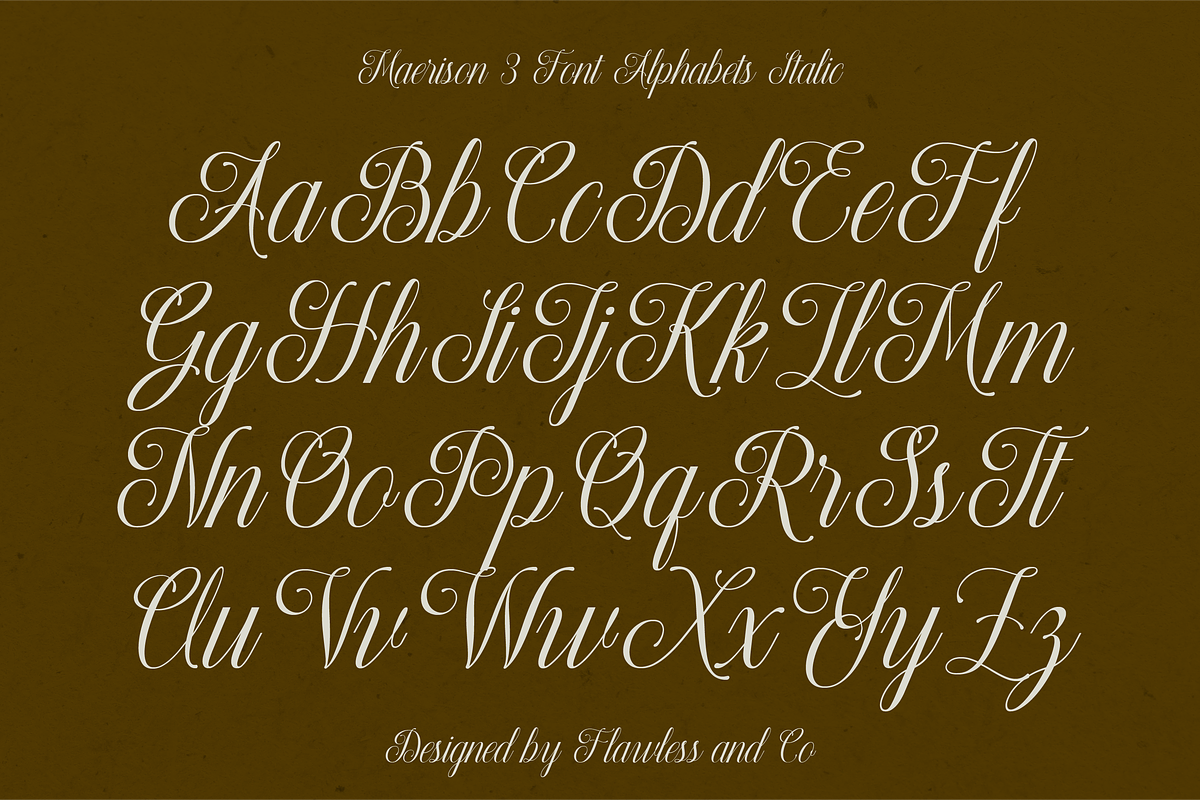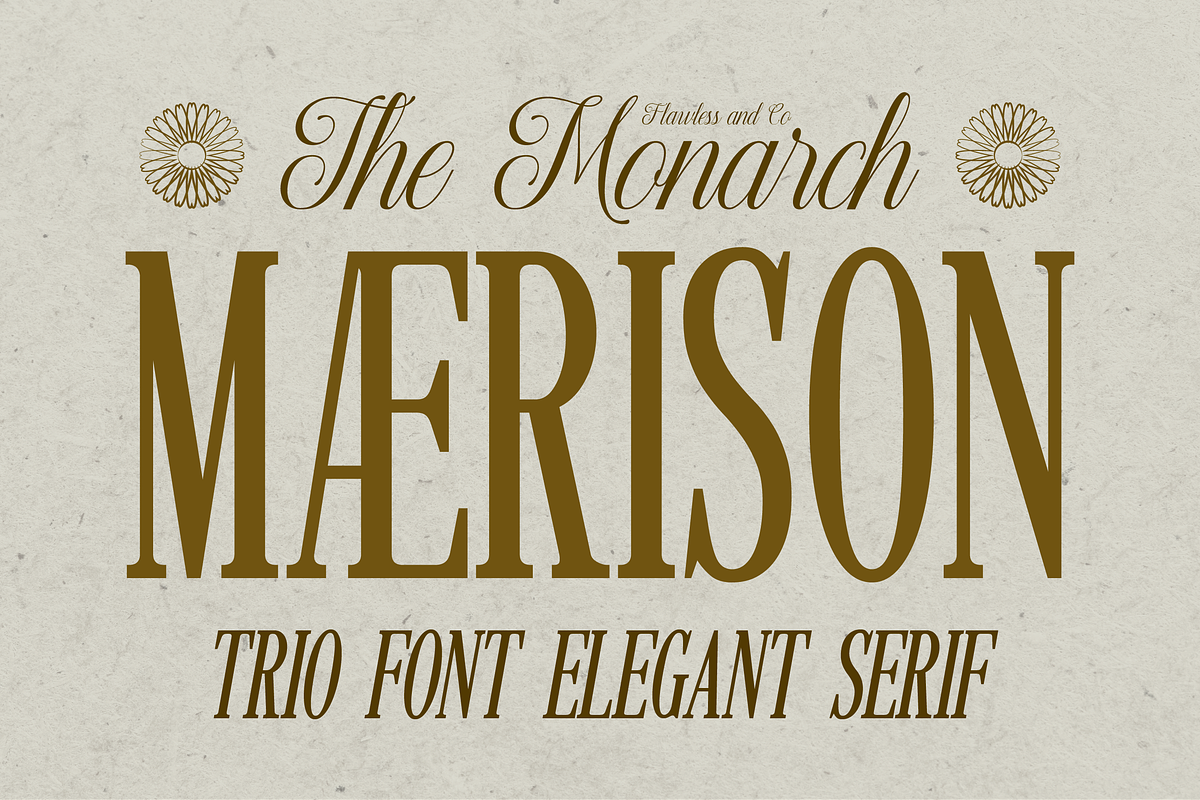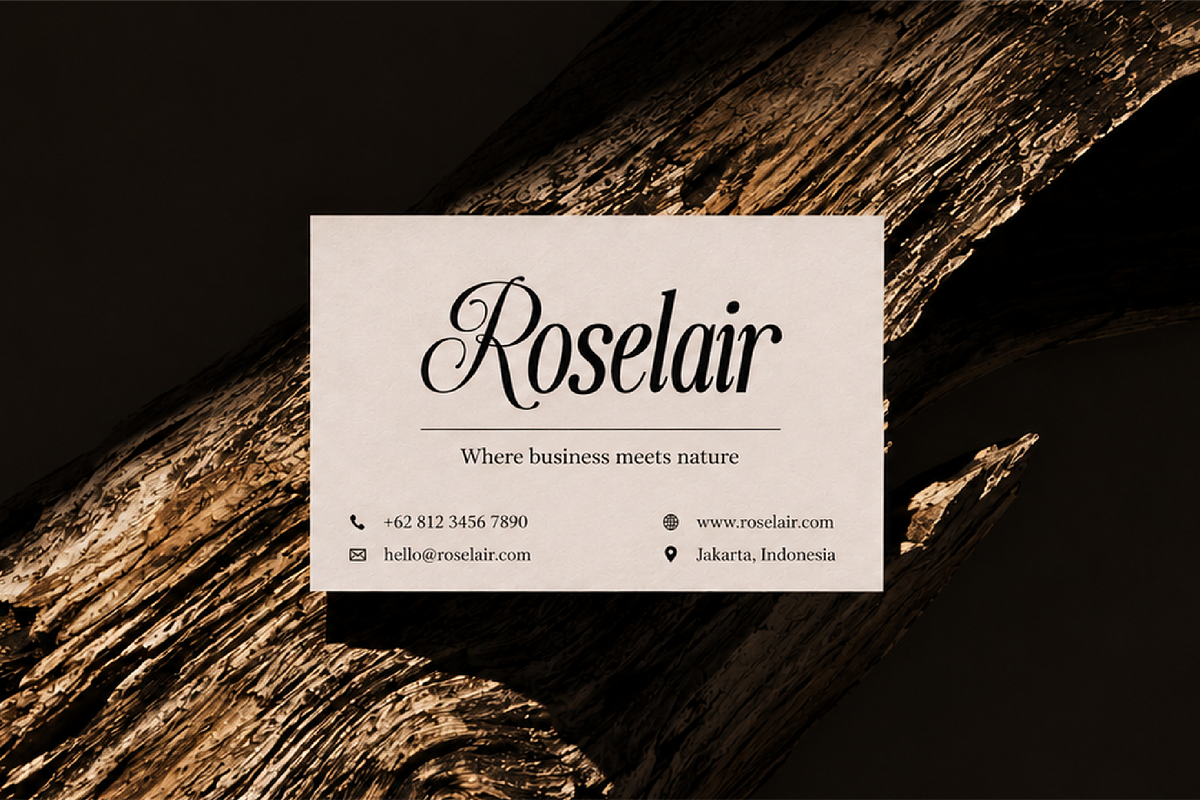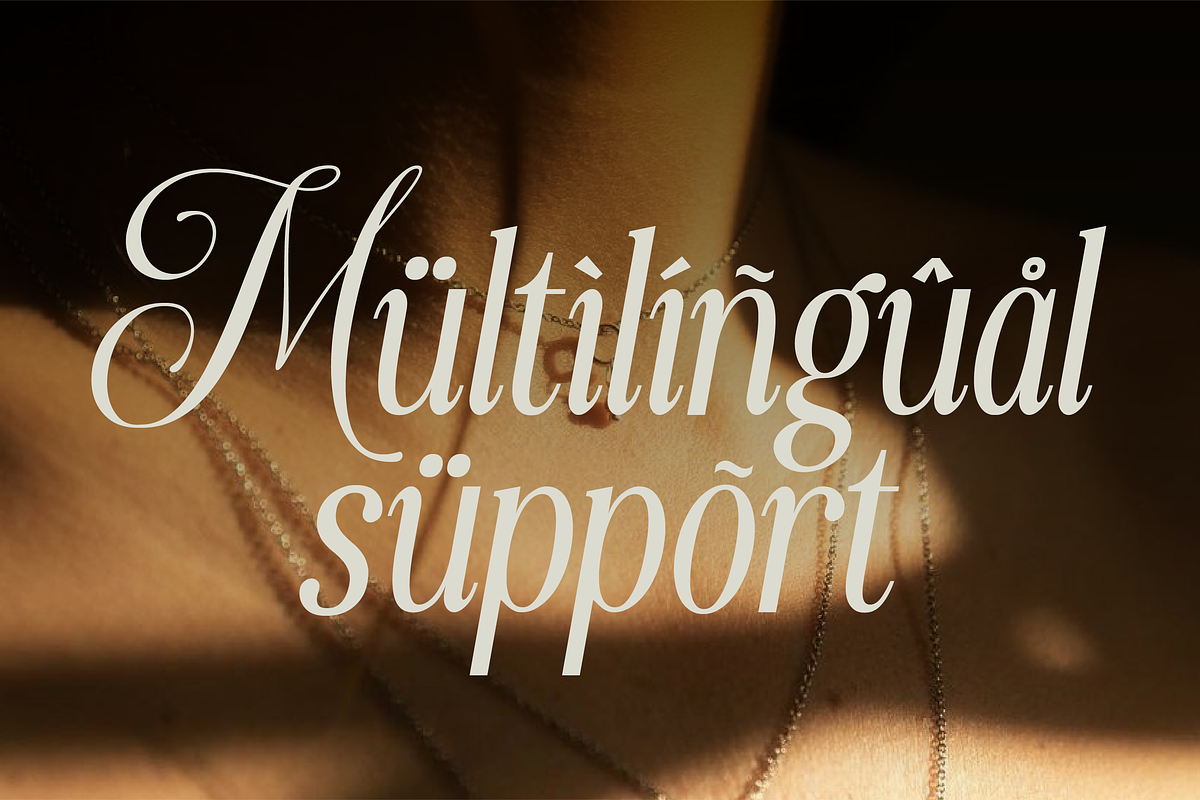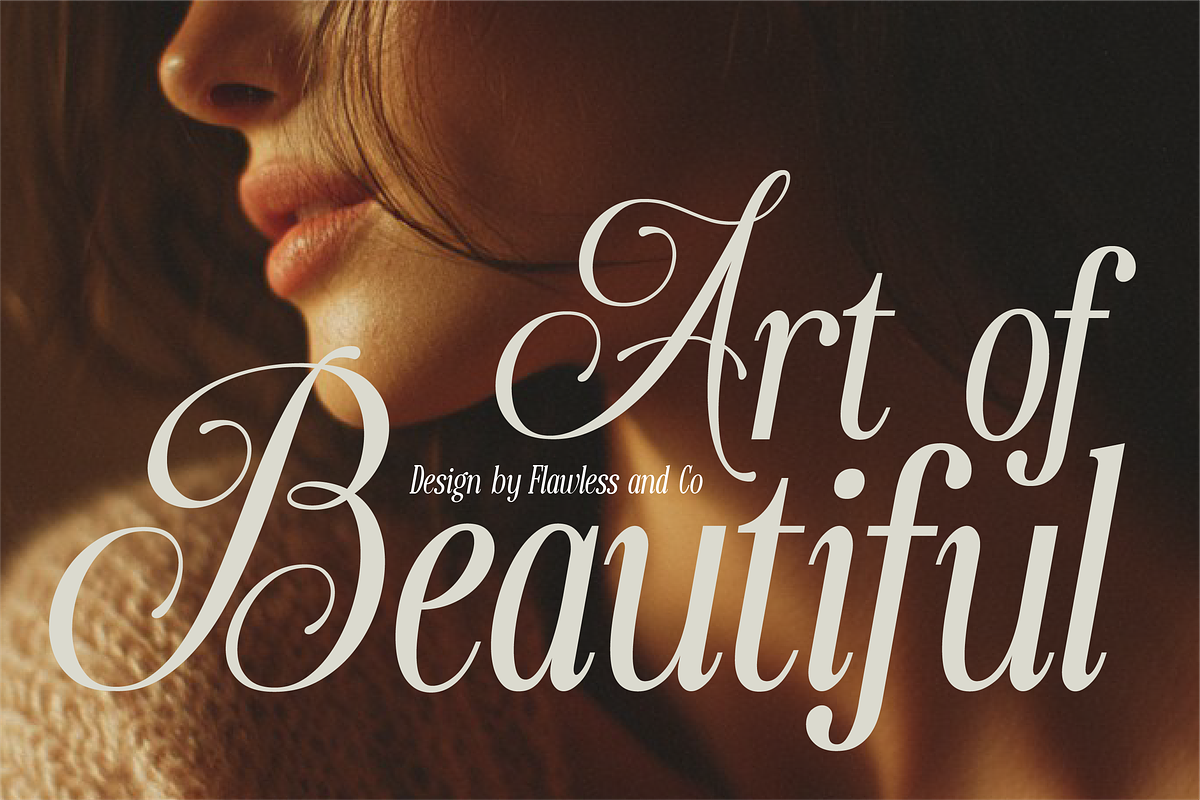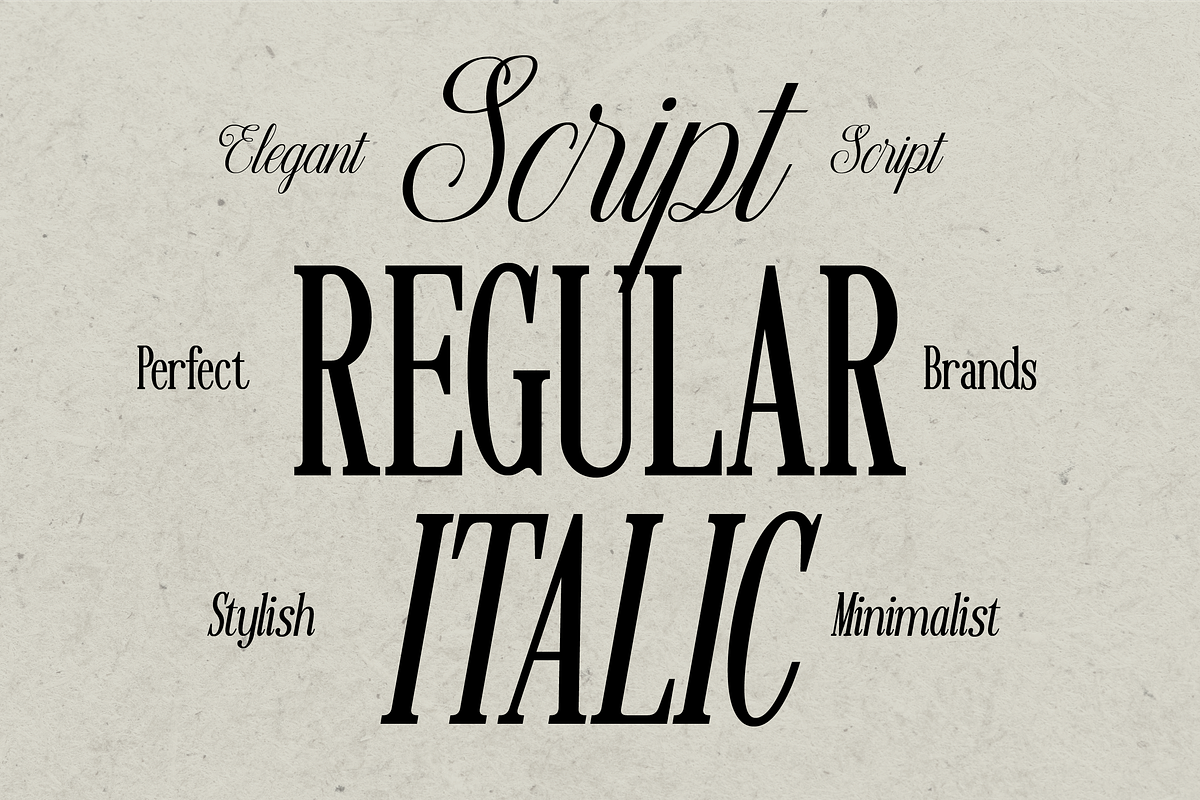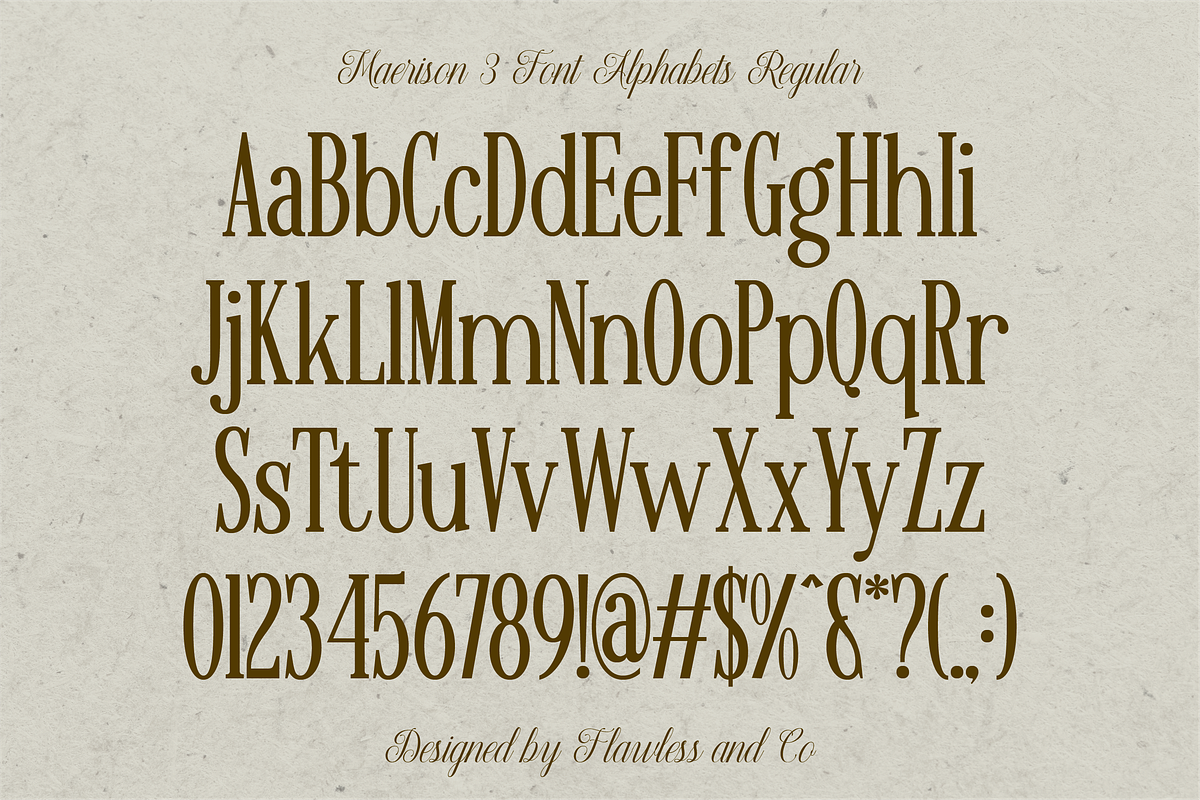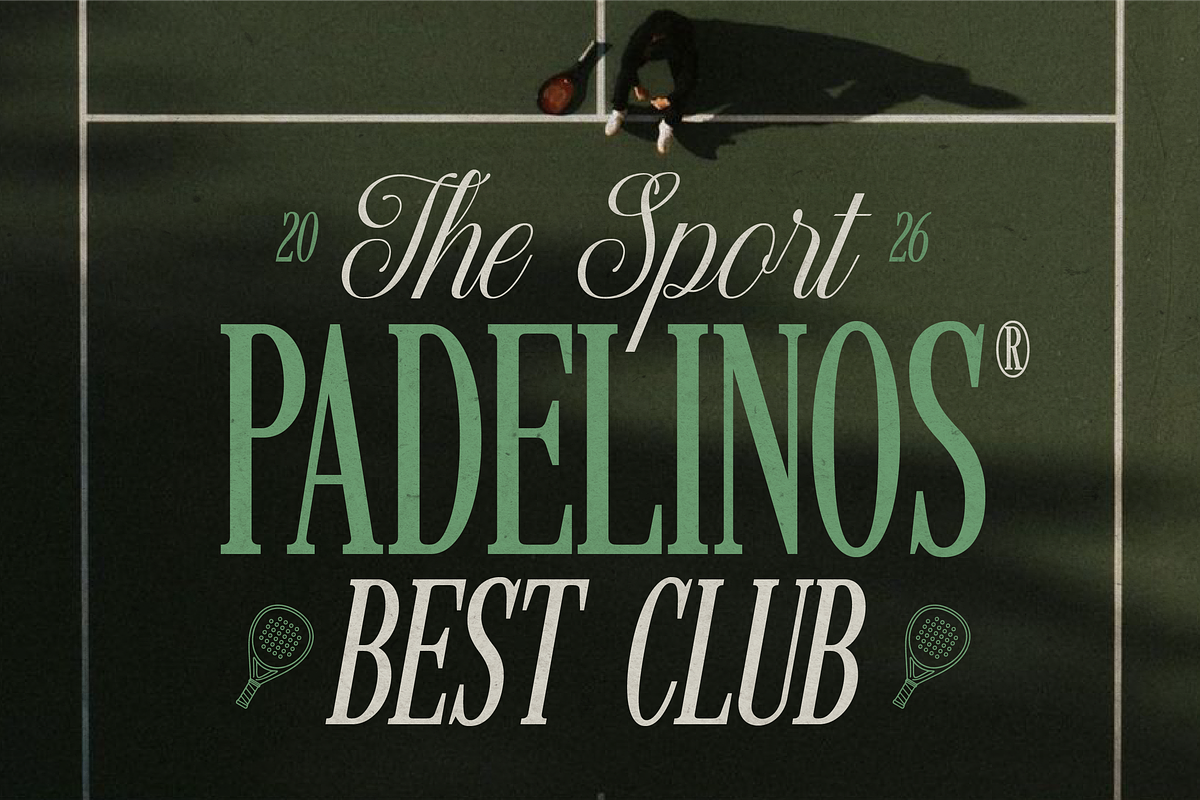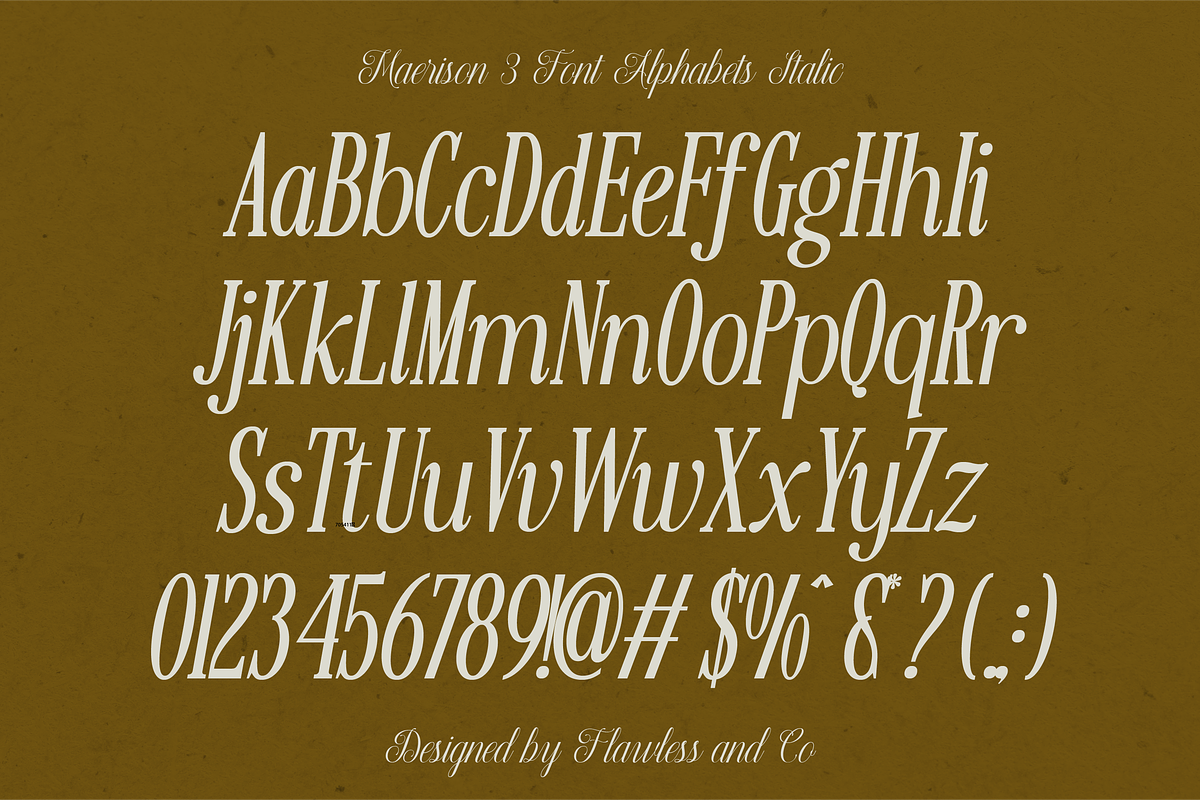
Maerison - Trio Serif Script Font
Maerison - Trio Elegant Serif & Script Font
Maerison is a beautifully crafted trio font collection that combines the timeless sophistication of serif typography with the graceful beauty of script lettering. Designed to create effortless font pairings, Maerison includes an elegant serif regular, a refined serif italic, and a flowing script font that work together harmoniously across a wide range of creative projects.
Featuring refined letterforms, luxurious details, and balanced visual contrast, Maerison delivers a sophisticated and versatile typographic experience. The serif styles provide structure, elegance, and professionalism, while the script style introduces fluidity and artistic charm. Whether used separately or combined, Maerison helps create stunning designs with a polished and memorable appearance.
Alternates & Ligatures
Who Should Use Maerison?
Maerison is ideal for designers, creatives, entrepreneurs, and premium brands seeking a complete typography solution with elegance and versatility. It’s especially suited for projects that require luxurious serif typography paired with graceful script accents.
Suitable For:
Luxury branding and visual identity
Fashion and beauty projects
Wedding invitations and stationery
Editorial and magazine design
Packaging and product labels
Social media content
Elegant typography compositions